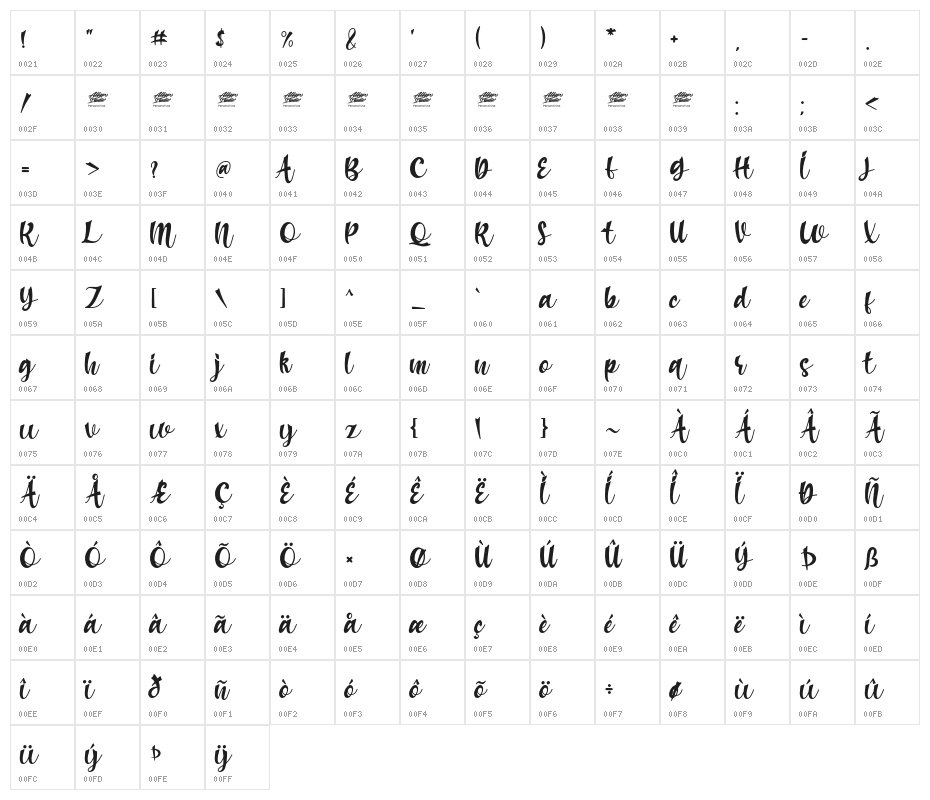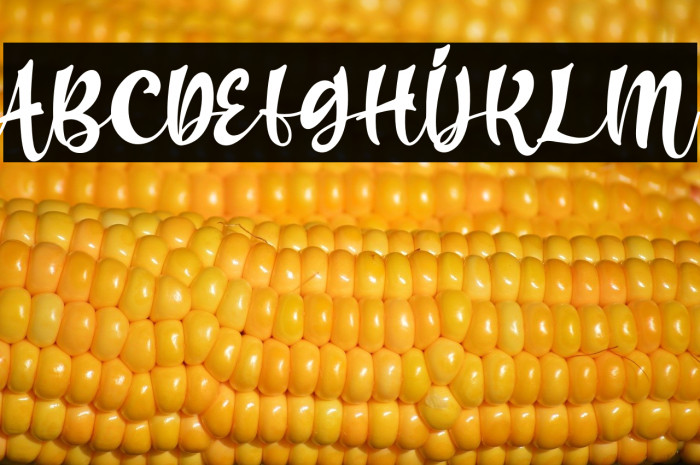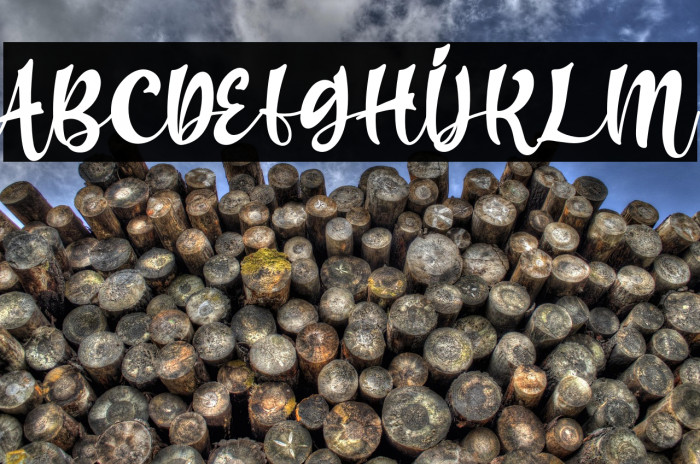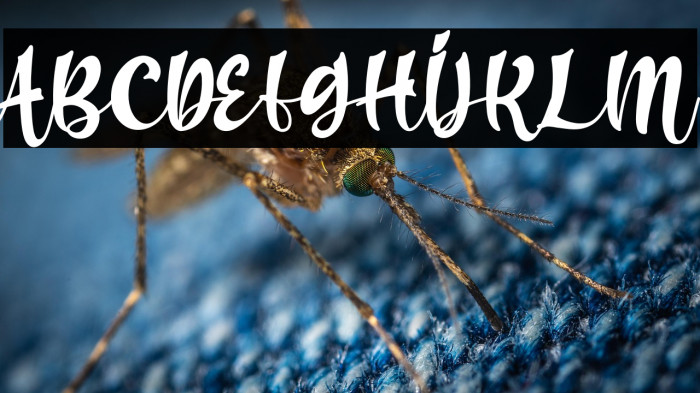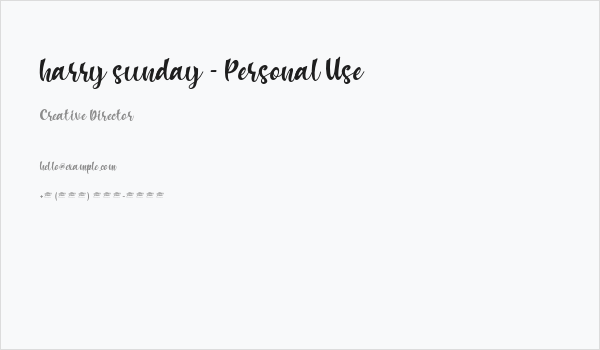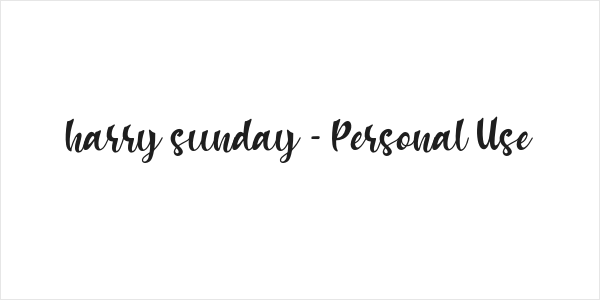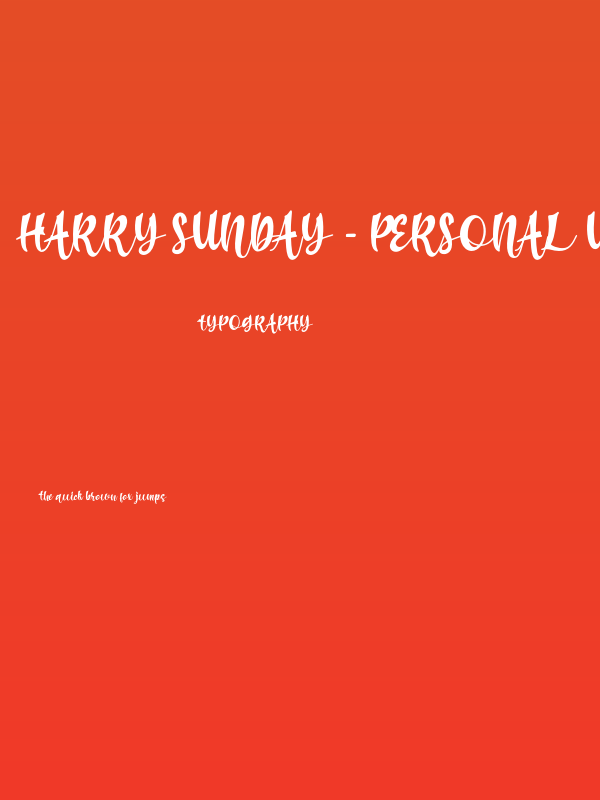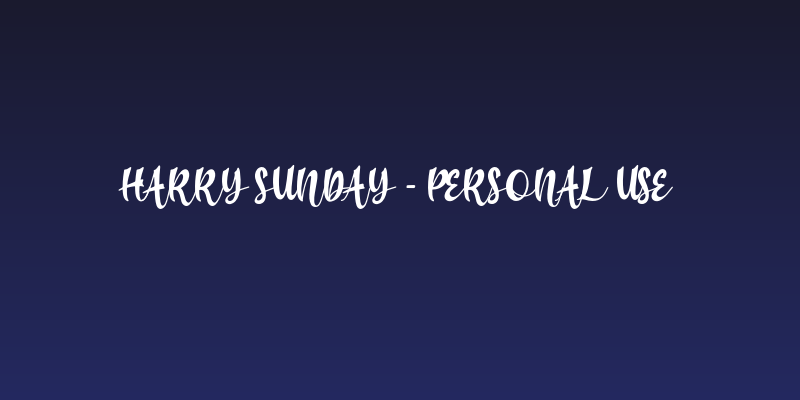
harry sunday - Personal Use Font
harry sunday - Personal Use Description
This font features a bold and expressive script style, characterized by its flowing, cursive letterforms that convey a sense of elegance and creativity. The uppercase letters are particularly striking, with exaggerated loops and swashes that add a dynamic flair. The lowercase letters maintain a consistent style, with smooth curves and a rhythmic flow that enhances readability. The numerals and special characters are designed to complement the overall aesthetic, ensuring versatility across various applications. This font's bold strokes and artistic flair make it suitable for projects that require a touch of sophistication and personality.
| Proposed Projects | Ideal for wedding invitations, branding, logo design, and creative projects that require an elegant touch. |